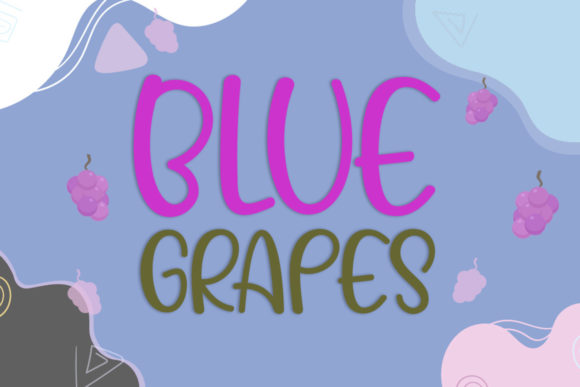
Step into the enchanting world of Blue Grapes Font, a playful and jolly display font designed by the talented Nico Muslib. This charming creation embodies the essence of fun and authenticity, making it the perfect choice for any children's activity or school project.
Blue Grapes Font is more than just a collection of letters and characters; it's an invitation to let your imagination soar. Its unique design, reminiscent of hand-drawn typography, adds a touch of whimsy and creativity to your projects. Whether you're designing posters, invitations, or creating logos for your child's school club, Blue Grapes Font will bring a smile to everyone's face.
With Blue Grapes Font, you'll embark on a journey of creativity, exploring new possibilities and expressing yourself in ways you never thought possible. Its playful nature inspires a sense of adventure, encouraging you to think outside the box and embrace your inner child.
Don't settle for ordinary fonts that blend into the background. Choose Blue Grapes Font and let your designs shine with personality. Its unique charm will captivate your audience, leaving a lasting impression that they won't soon forget.
With Blue Grapes Font, your projects will exude a sense of joy and lightheartedness. It's the perfect font for creating designs that connect with your audience on an emotional level, leaving them feeling uplifted and inspired.
So, if you're looking for a font that embodies playfulness, authenticity, and creativity, then Blue Grapes Font is the perfect choice for you. Let your imagination run wild and experience the magic of this enchanting font today.